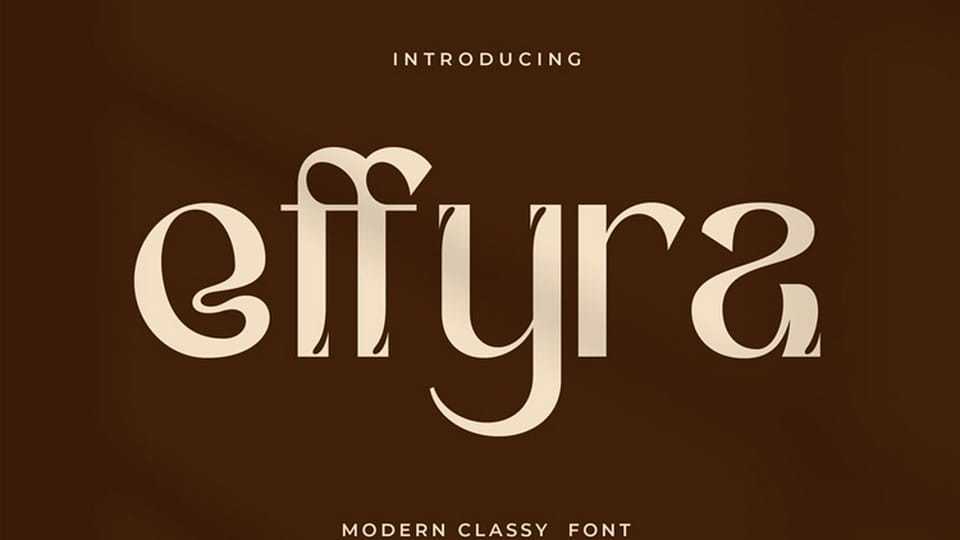
Download Effyra font, born from the idea that typography should speak softly, yet leave a lasting impression. Inspired by modern elegance and timeless beauty, Effya blends smooth curves, refined serifs.
Designer: Rvandtype Studio